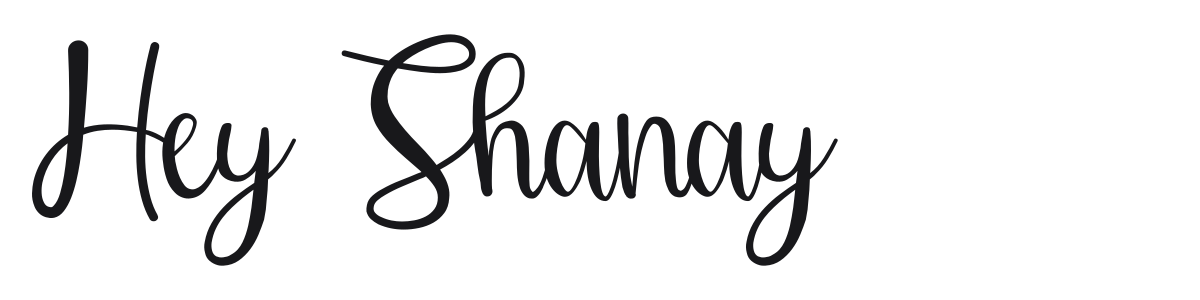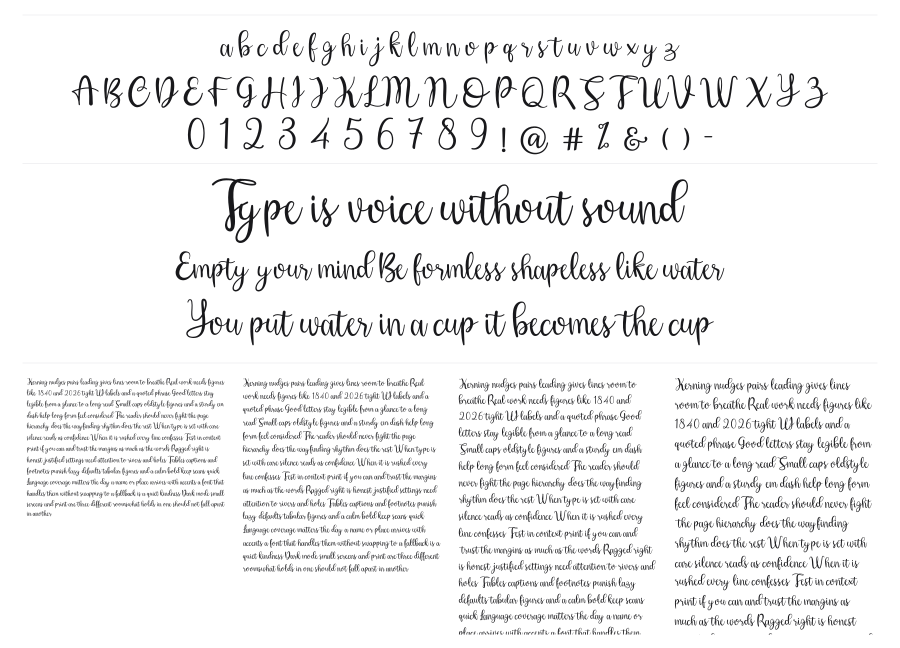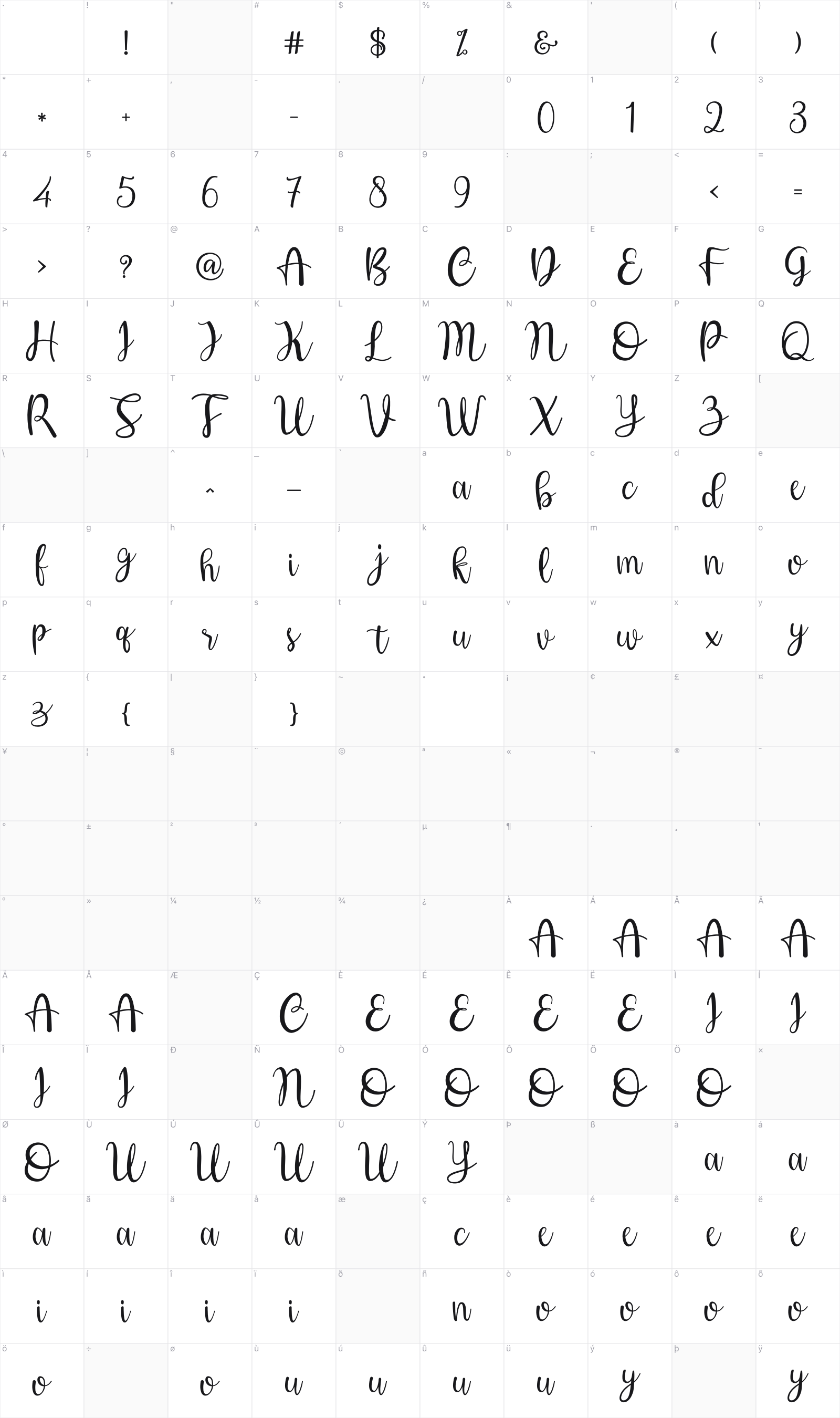
Hey Shanay
Hey Shanay is a lively casual script from Beautypes Studio with a bouncy baseline and smooth, looping connections between letters. The strokes carry natural calligraphic contrast, thick on the downstroke and thin on the upswing, giving it genuine hand-lettered character without feeling rough. It works across branding, packaging, and social content wherever a warm, approachable personality is the goal.